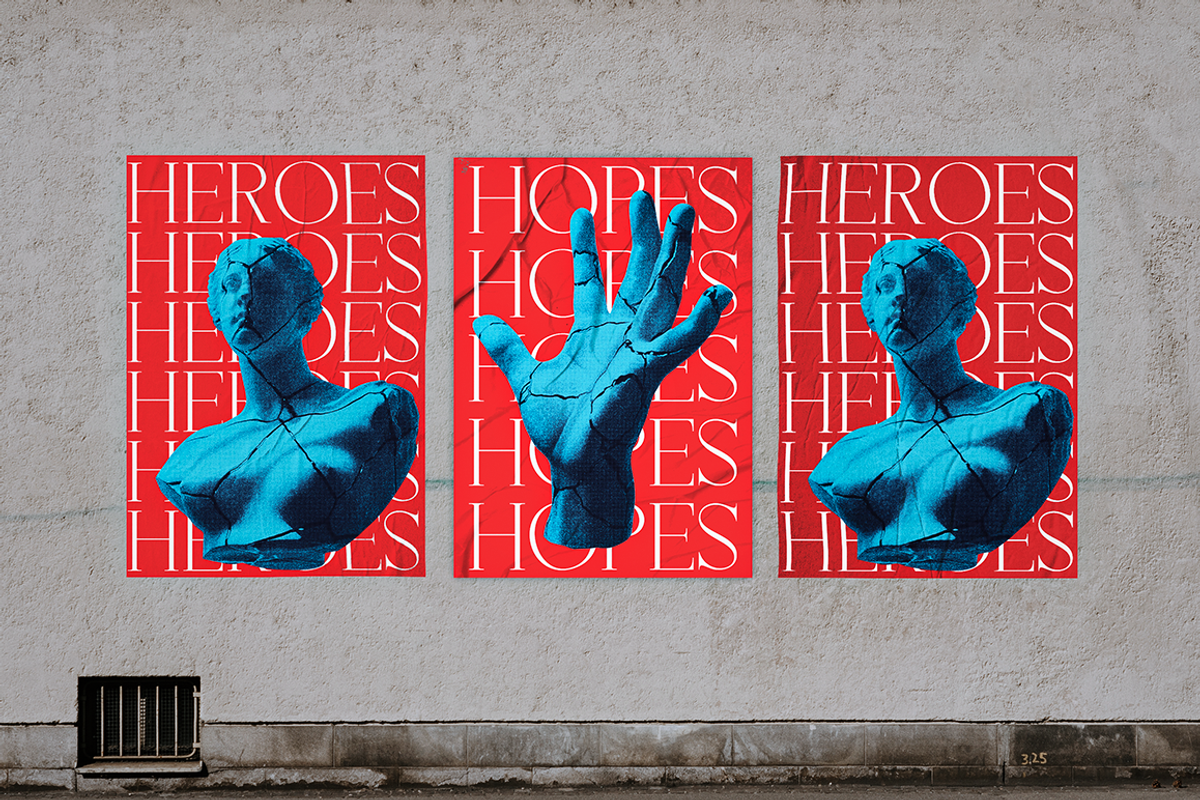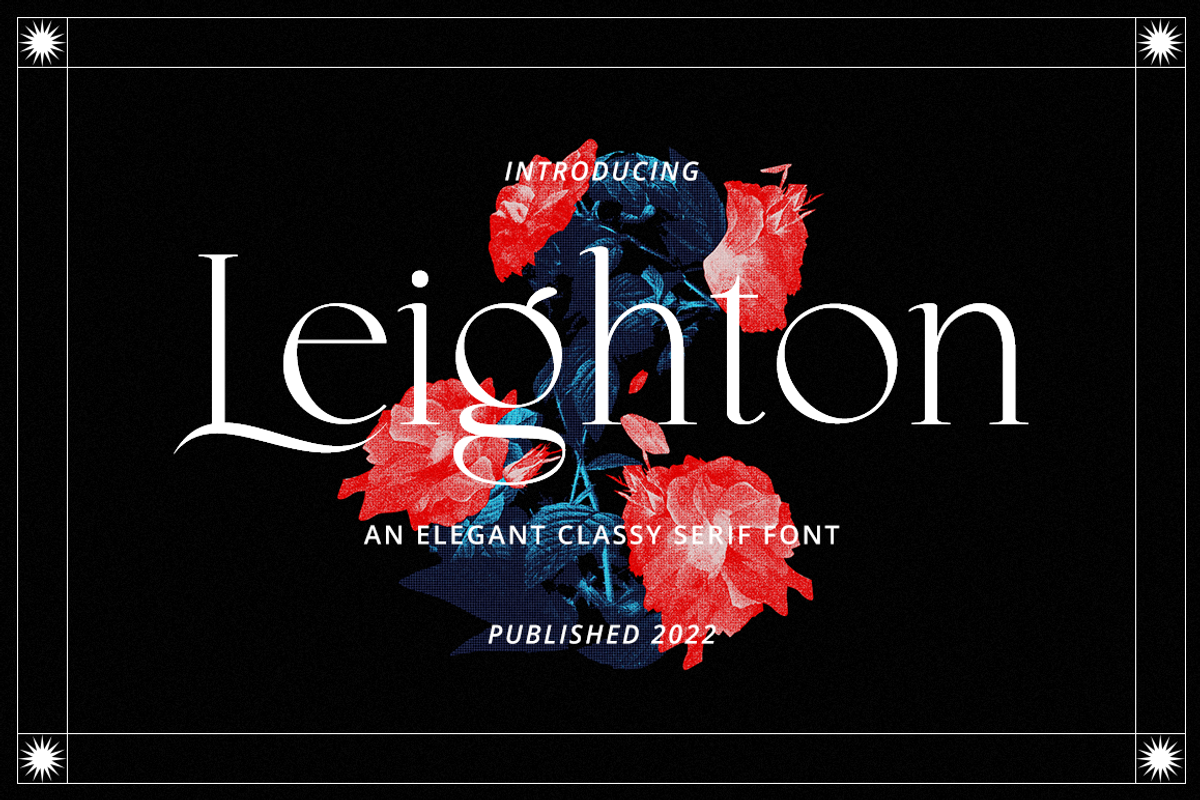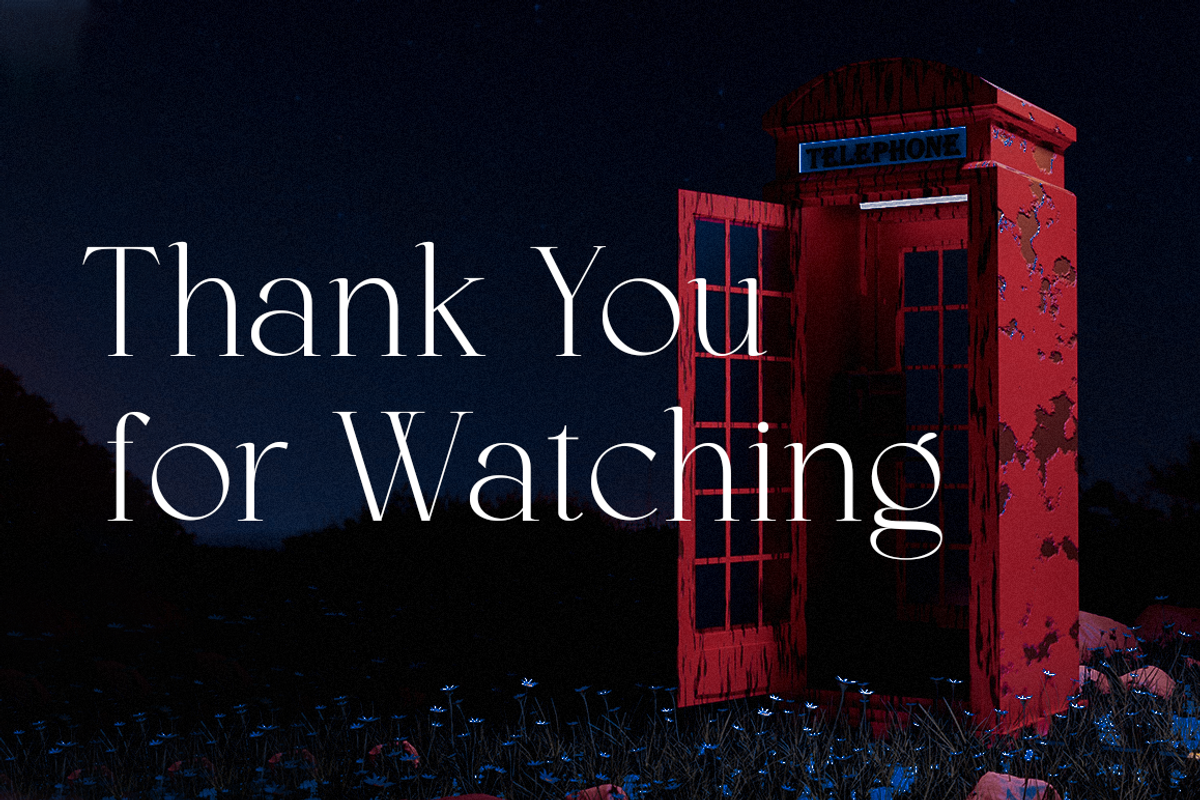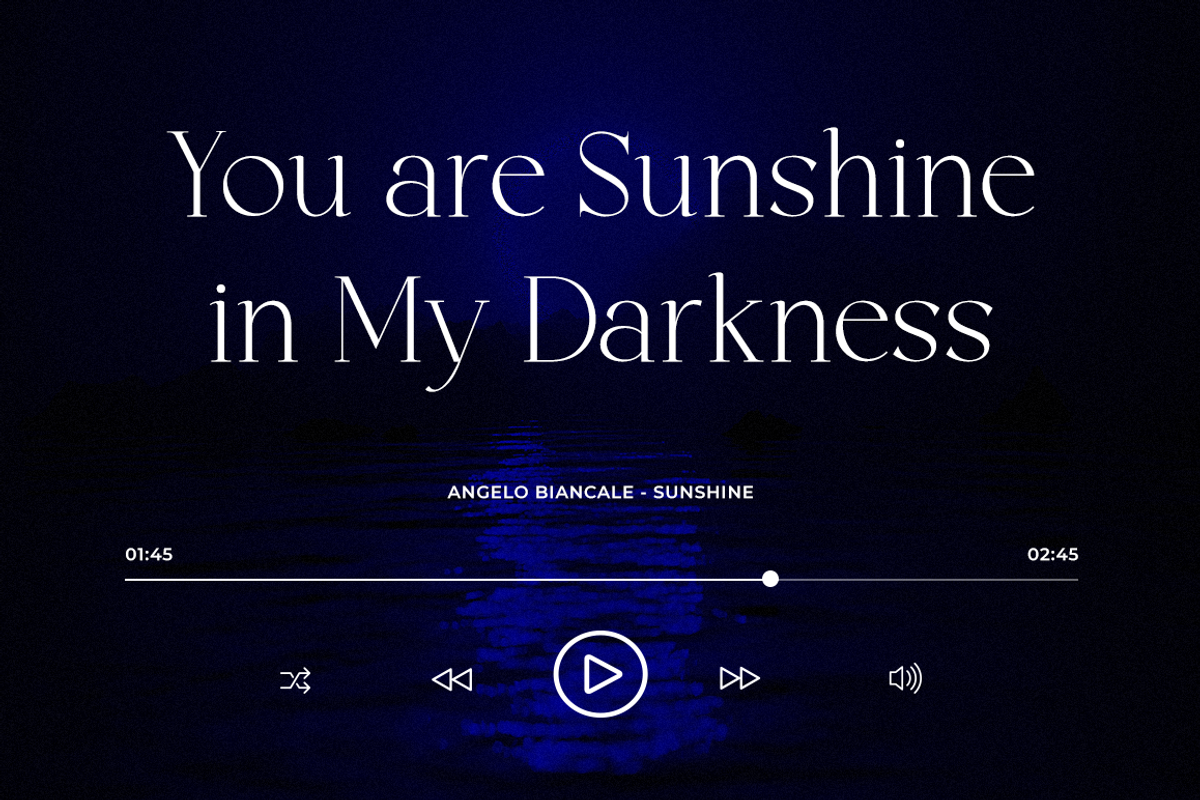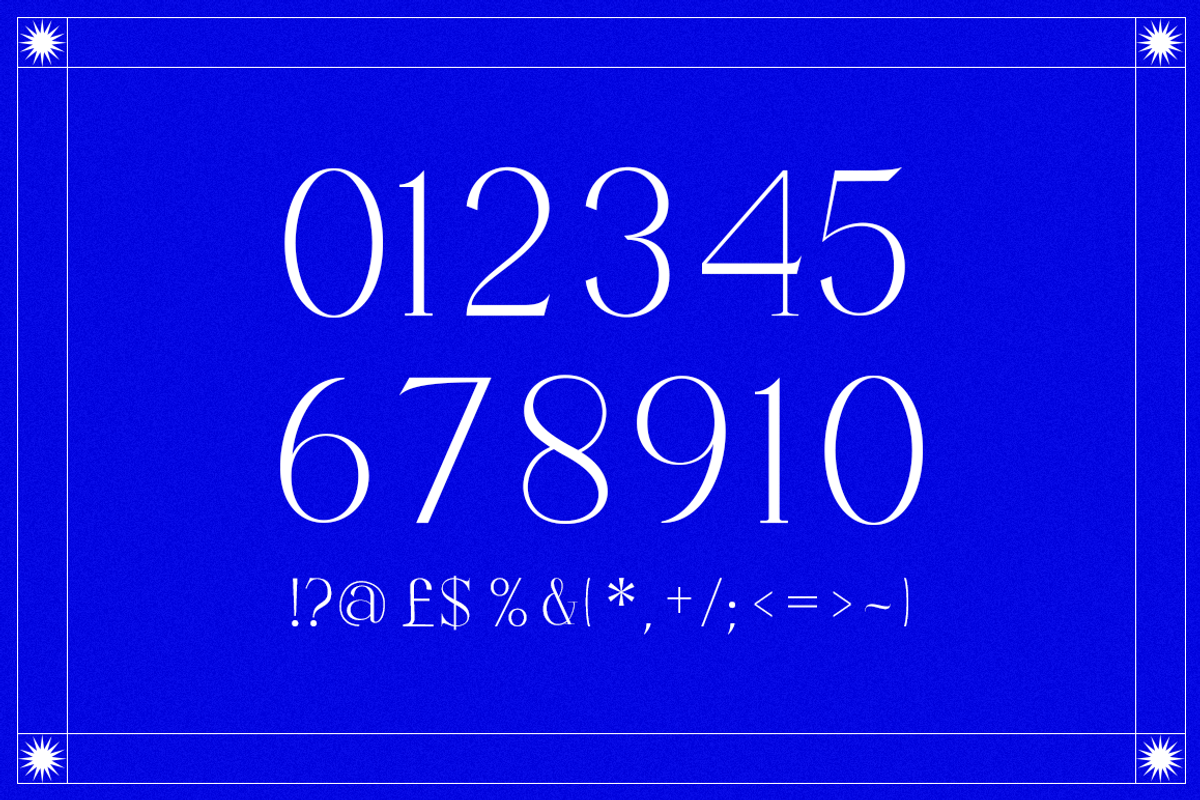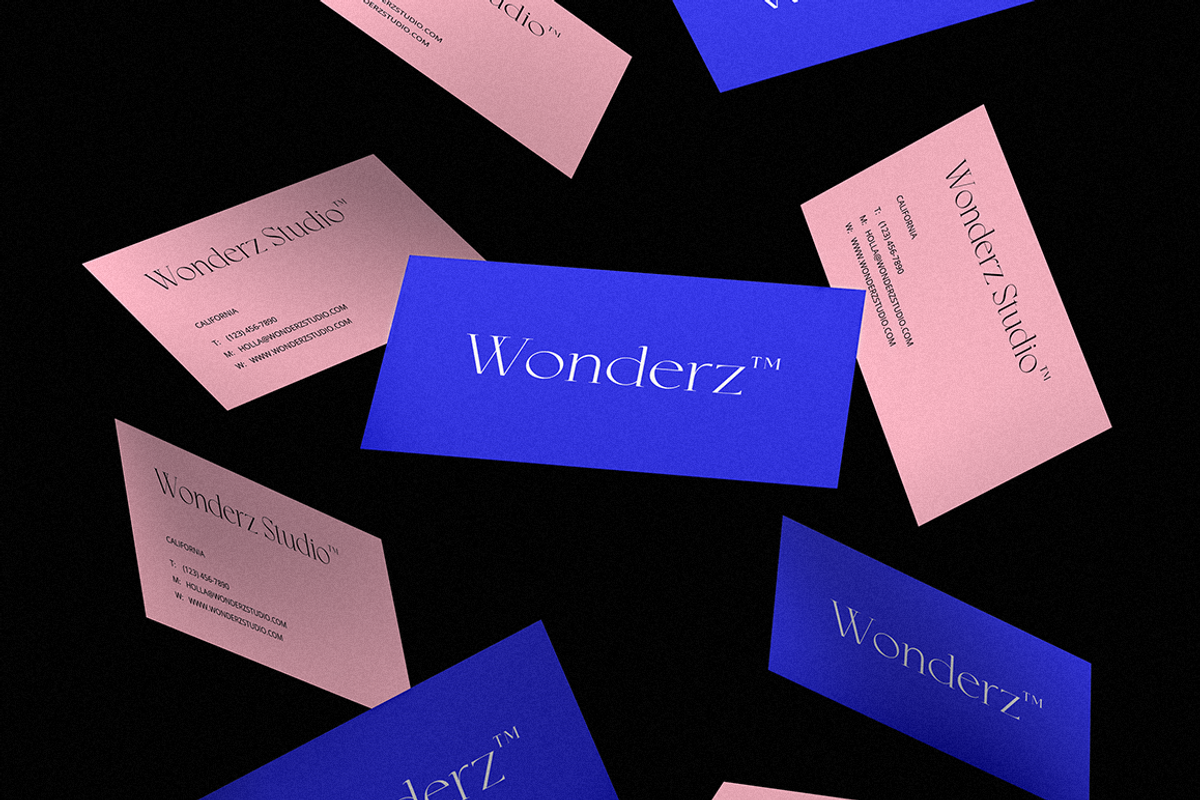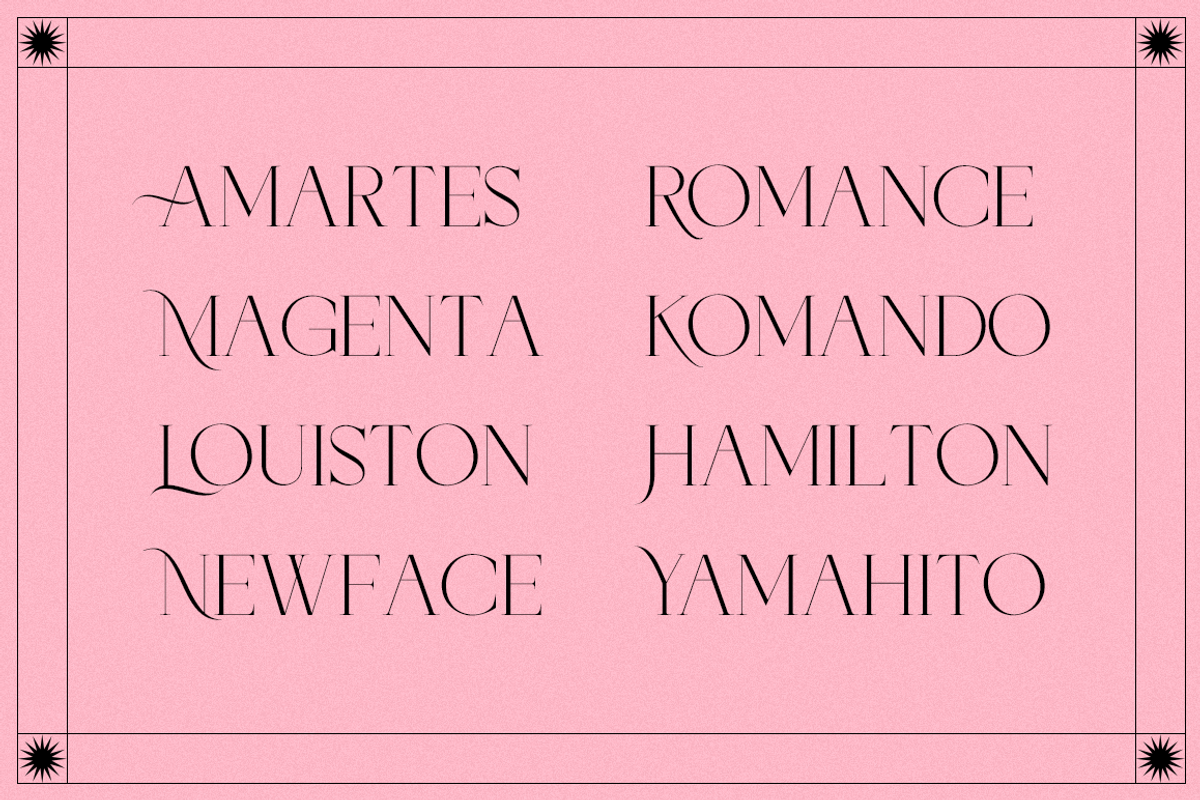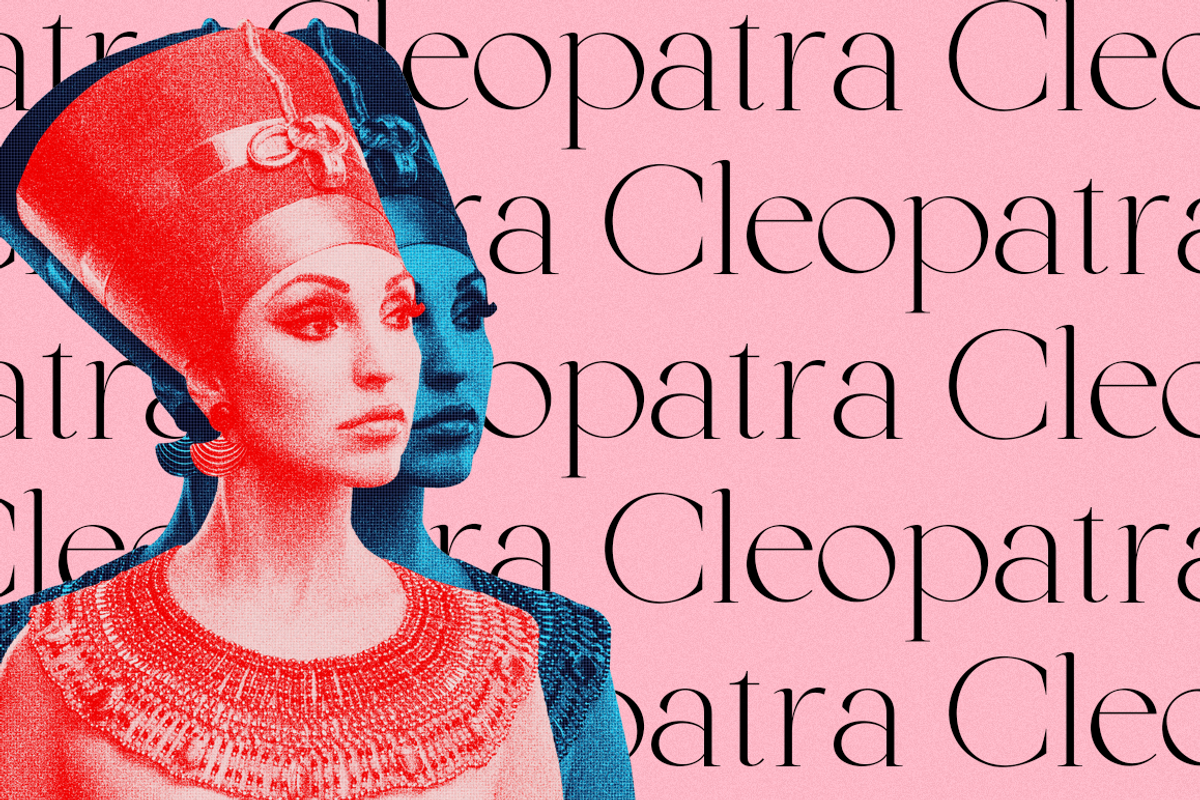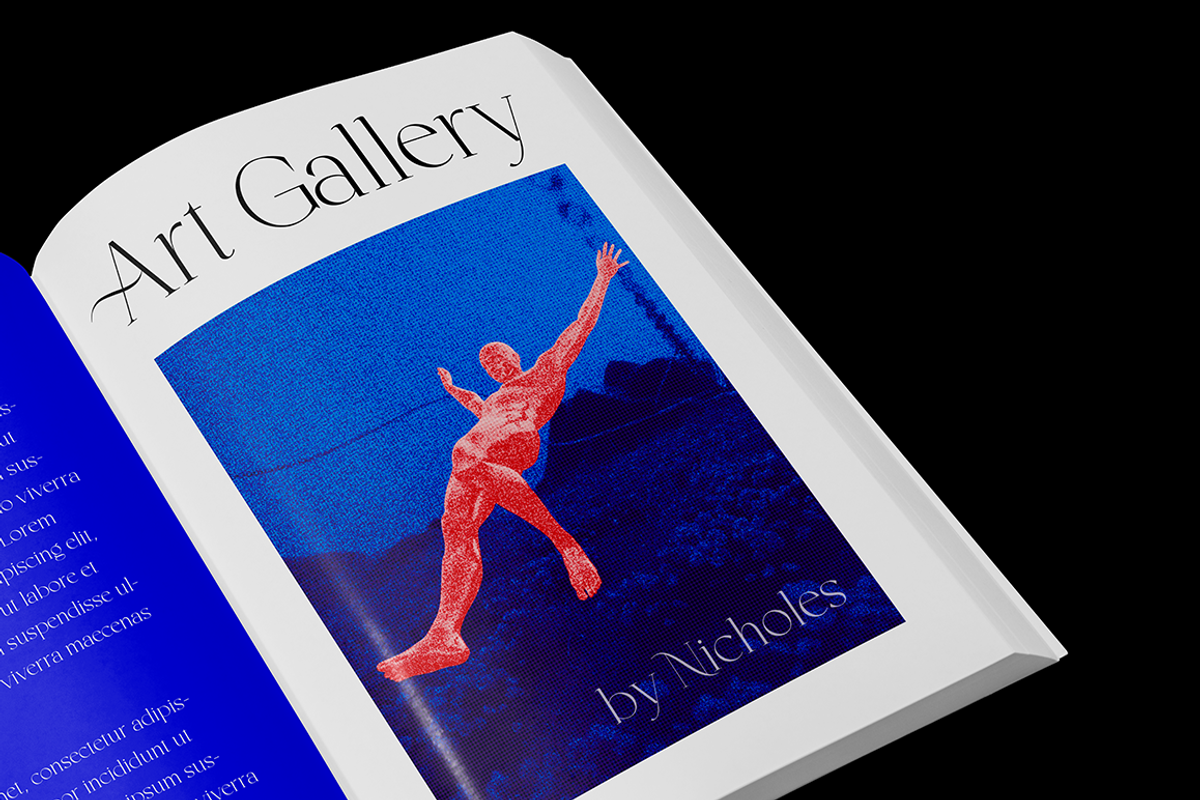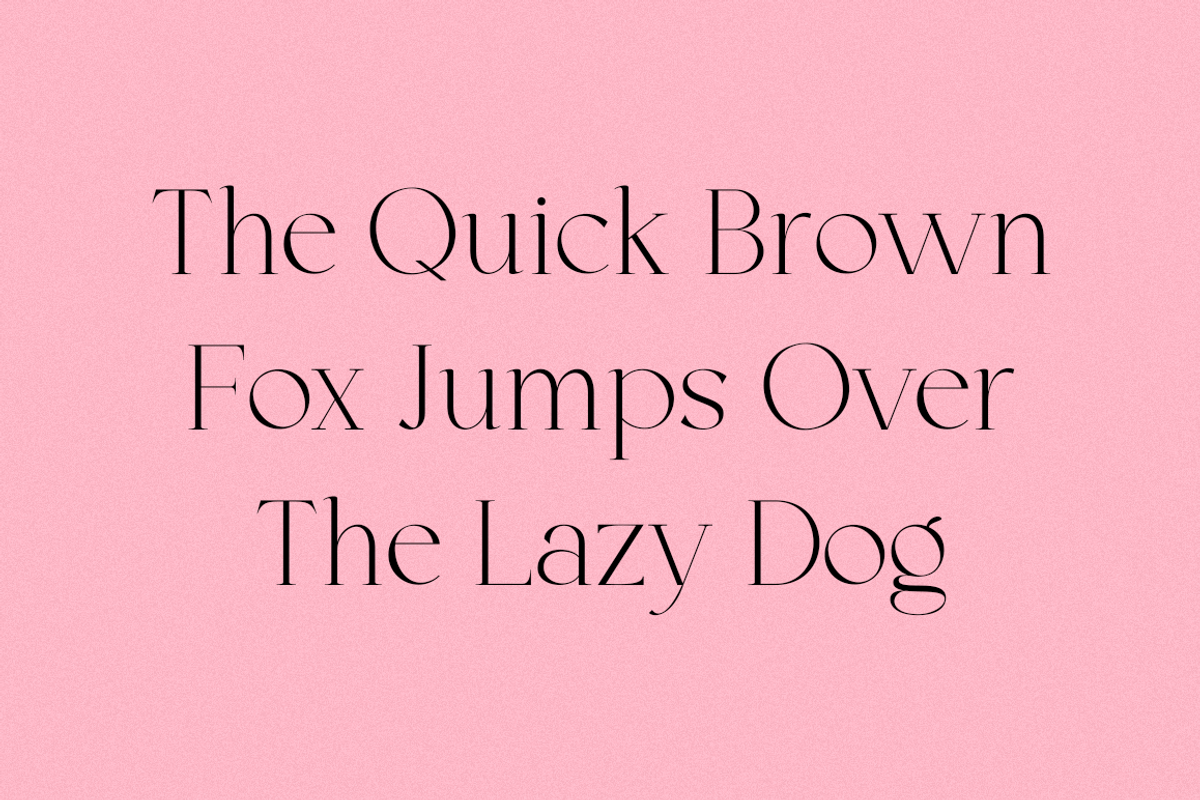
Leighton - Classy Serif Font
**Leighton is an elegant and distinct serif font. Suitable to a wide variety of designs due to its neat and simple style, this font has the potential to become your favorite go-to font, no matter the occasion!